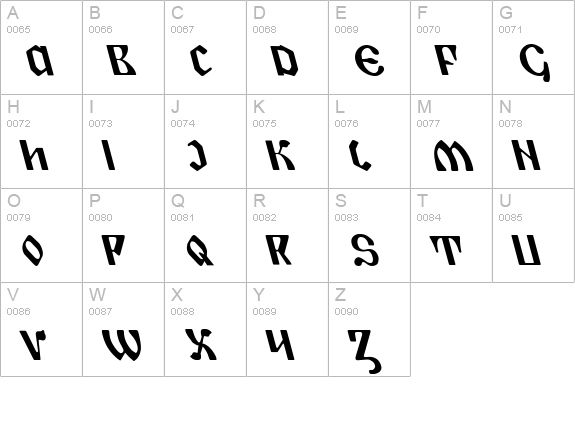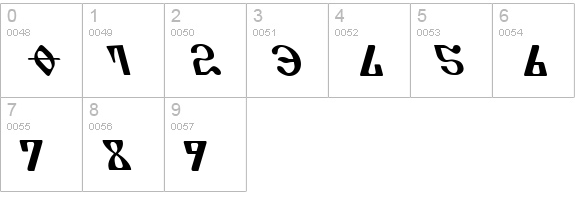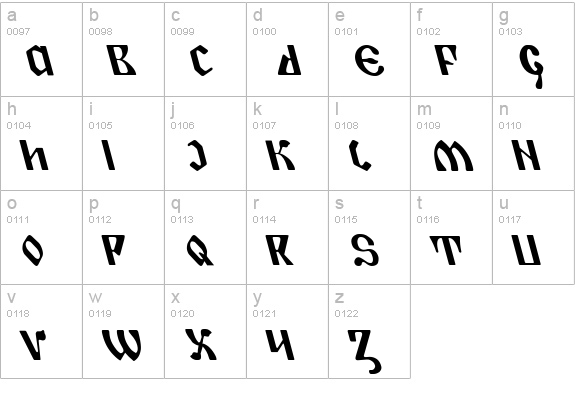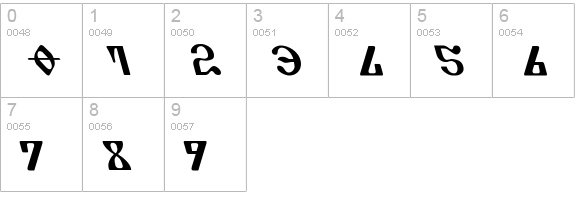
Introducing Piper Pie Leftalic font, a whimsical and playful typeface that exudes charm and creativity. With its unique italic style and quirky letterforms, this font is perfect for adding a touch of fun to your design projects. Whether you're working on invitations, posters, or branding materials, Piper Pie Leftalic is sure to make a bold statement. What's even better is that Piper Pie Leftalic font is available for free download at FontsMarket.com. Now you can easily access this delightful font and elevate your designs without any cost. Don't miss out on the opportunity to enhance your projects with the charm and character of Piper Pie Leftalic font. Download it today and let your creativity soar!